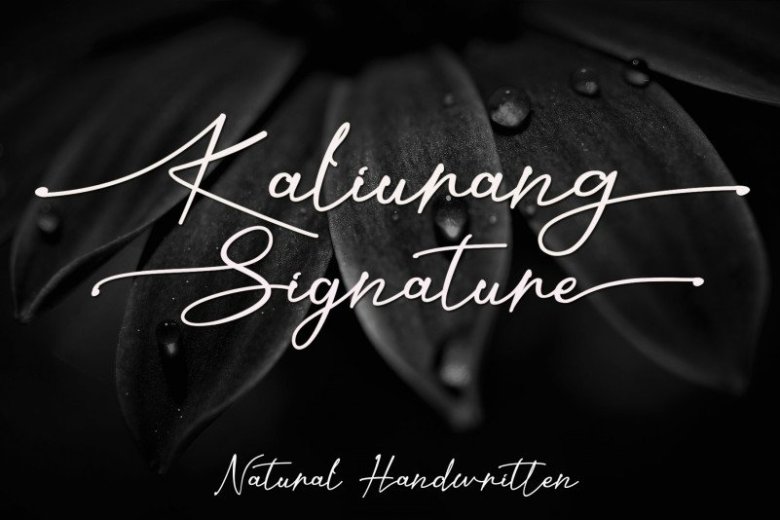
Kaliurang Signature Font
Kaliurang Signature Font is a charming handwritten font to add your typography design looks modern yet elegant. It is a modern handwritten font by Letterafa Studio. It has flowing letters that will give your designs a unique and sweet look. Kaliurang Signature font is perfect; logos, greeting cards, a package design, a brand identity, craft design, any DIY project, book title, wedding invitation, packaging, and more.